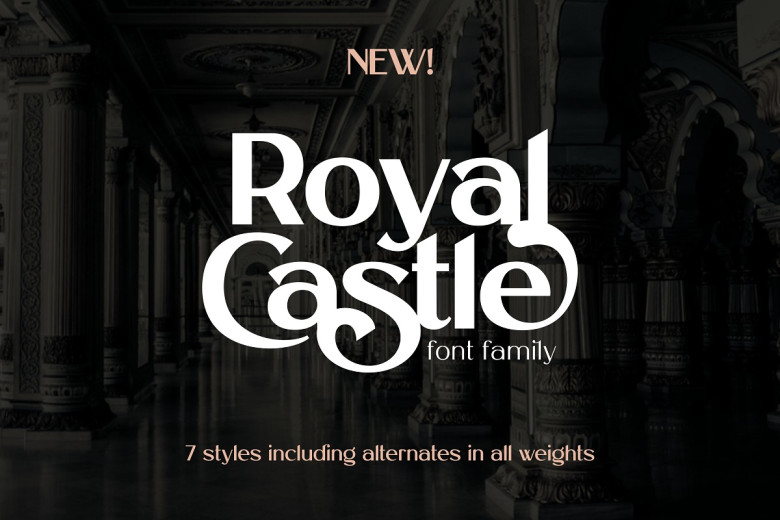
Royal Castle Font
Royal Castle is a unique font family without connection points. It has a given style of luxury and amazing swashes too. There are 7 weights packed in. Royal Castle is playfully nostalgic and outputs a bad-ass vintage aesthetic. Use it to give your design ideaslessly that special touch from time past!
Royal Castle Sans Serif Font